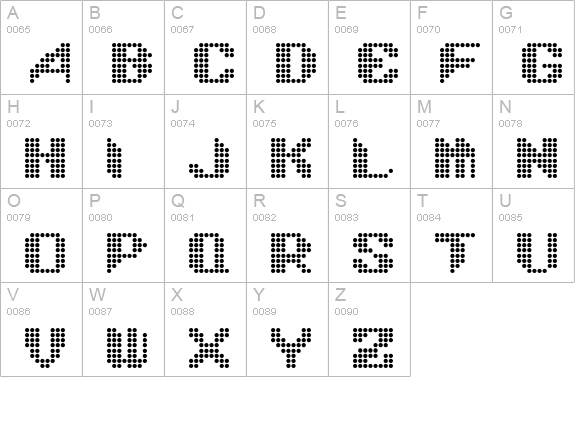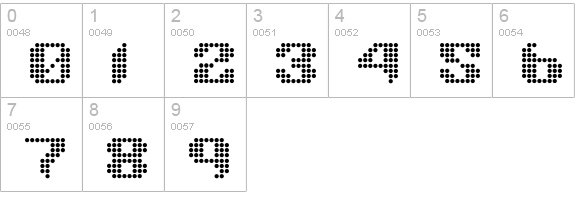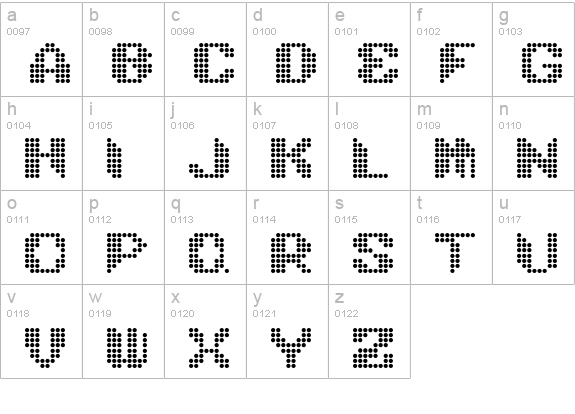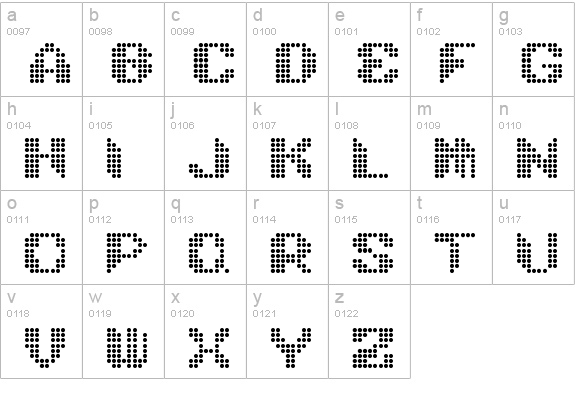
Introducing Roundbits font, a versatile and modern typeface designed to bring a touch of whimsy to your projects. With its rounded edges and friendly appearance, Roundbits is the perfect choice for adding a playful yet professional touch to your designs. This charming font is available for free download at FontsMarket.com, making it easily accessible for designers looking to add a unique flair to their work. Whether you're creating a logo, a poster, or a social media graphic, Roundbits is sure to make a memorable impression with its cheerful and approachable style. Embrace the creative possibilities that Roundbits font has to offer and elevate your designs with its delightful characters and smooth curves. Download it today and let your imagination run wild with this free and fabulous font!